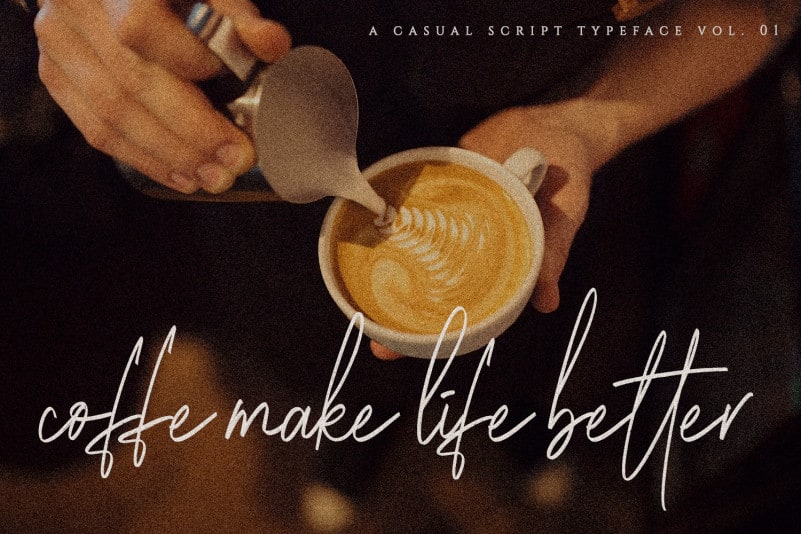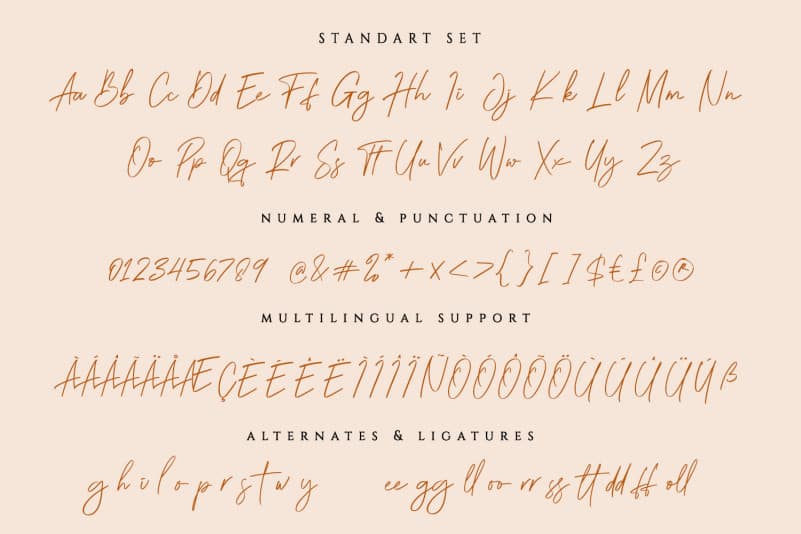
Brightness Script Font
Brightness Script Font is casual script typeface.
It’s the perfect fit for all luxury projects, such as wedding invitation, signatures, luxury logos, printed quotes, grettings cards, social media headers, product packaging and many more!
It includes a full set of uppercase and lowercase letters, multilingual symbols, numerals, punctuation and ligatures.
Brightness Script Font has a 2 font : Reguler and Rough Style.